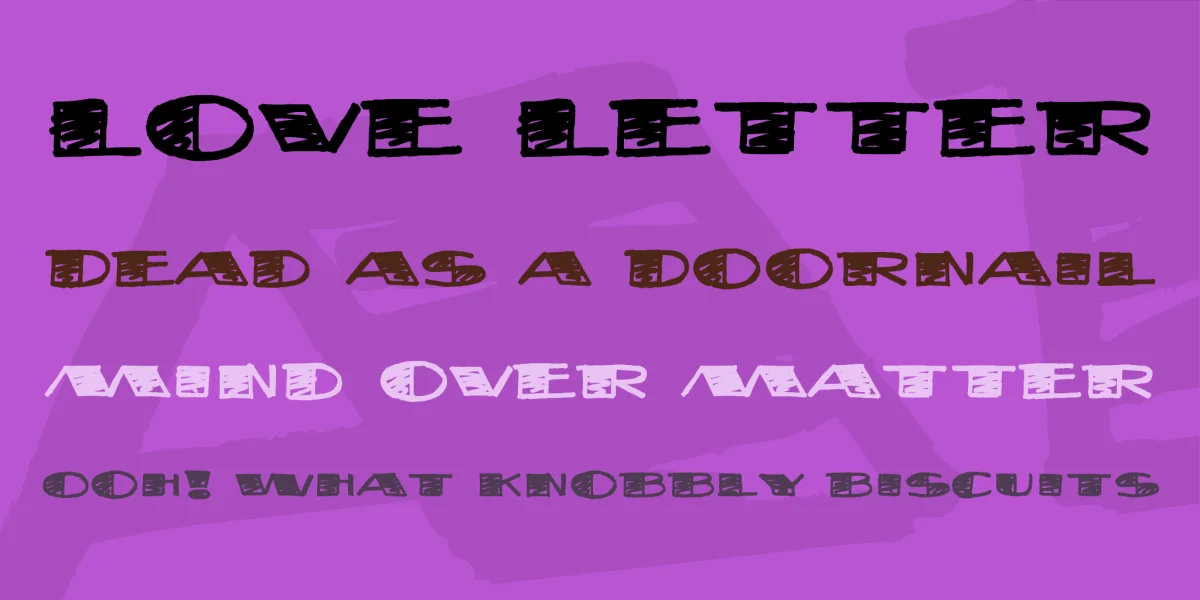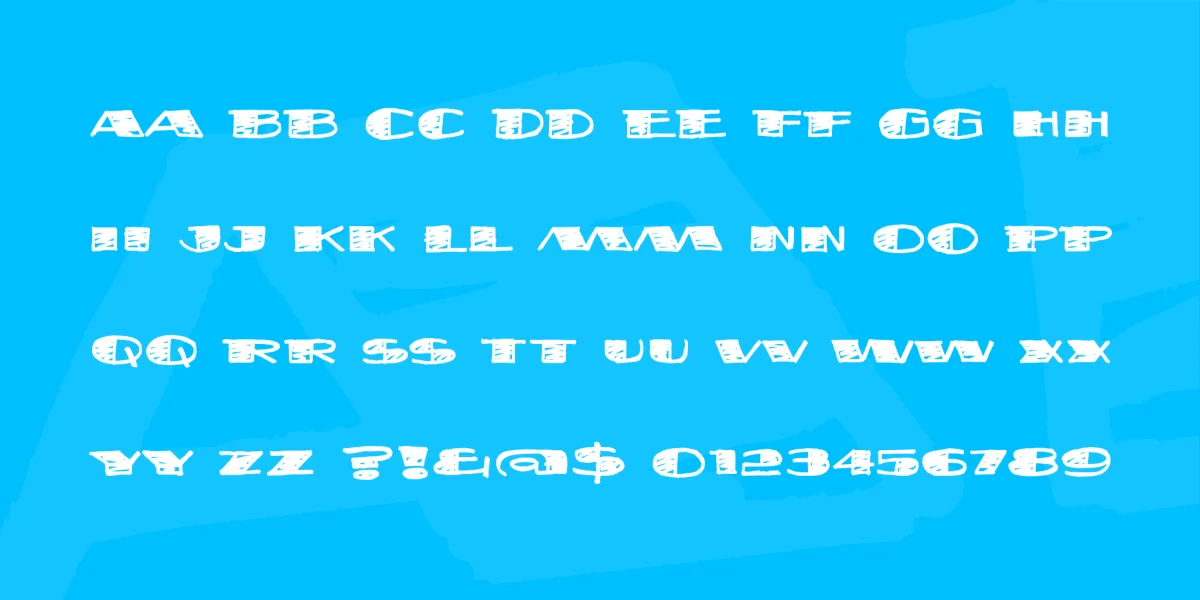
What do you get when you take one stir crazy designer and give him a handful of felt tip markers? This font! It’s wacky! Designed for a burger joint menu Nate did a few months ago.